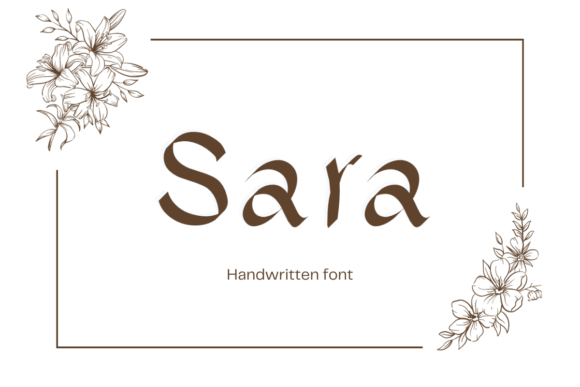
Introducing Sara Font: The Exquisite Script Font That Will Make Your Love Quotes Bloom!
Sara Font is not just a font; it is an exquisite work of art that will transform your love quotes into enchanting masterpieces. Created by the talented fonty88, this elegant and dainty handwritten font exudes a charm that is both timeless and captivating.
With its sweet and delicate swashes, Sara Font adds a touch of allure to every word, making your love quotes irresistible. Its original look is a breath of fresh air, inspiring a wide range of crafty ideas, from letterheads and titles to stationery.
Imagine your love quotes adorned with the graceful curves and delicate flourishes of Sara Font. Each letter dances across the page, carrying your heartfelt words with elegance and grace. Your loved ones will be mesmerized by the beauty of your expressions, feeling the depth of your emotions with every stroke of the pen.
Whether you're a seasoned calligrapher or just starting your journey into the world of beautiful fonts, Sara Font is the perfect companion. Its user-friendly nature makes it accessible to all skill levels, allowing you to create stunning love quotes effortlessly.
With Sara Font, you'll discover a new level of creativity, expressing your love in ways you never thought possible. Its versatility knows no bounds, adapting seamlessly to various design projects, from wedding invitations and greeting cards to social media posts and digital marketing materials.
So, why settle for ordinary fonts when you can elevate your love quotes with the enchanting beauty of Sara Font? Embrace the magic of this exquisite script font and watch your words blossom into captivating expressions of love and devotion.